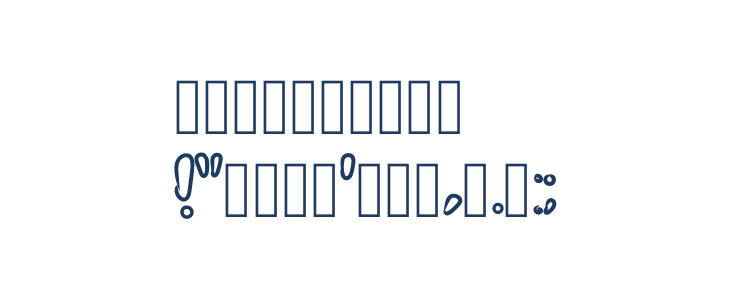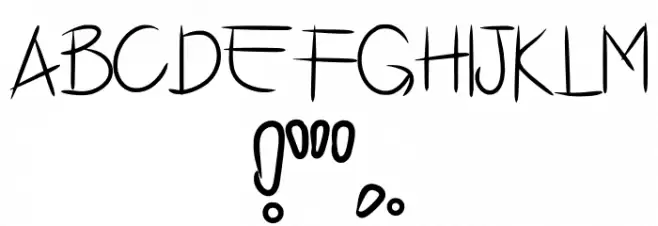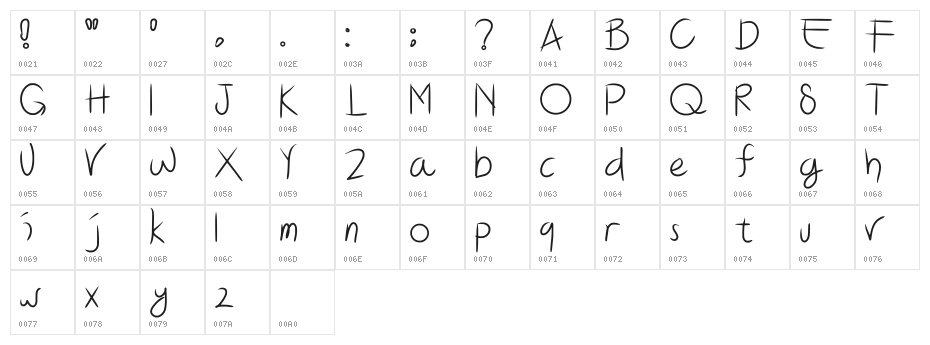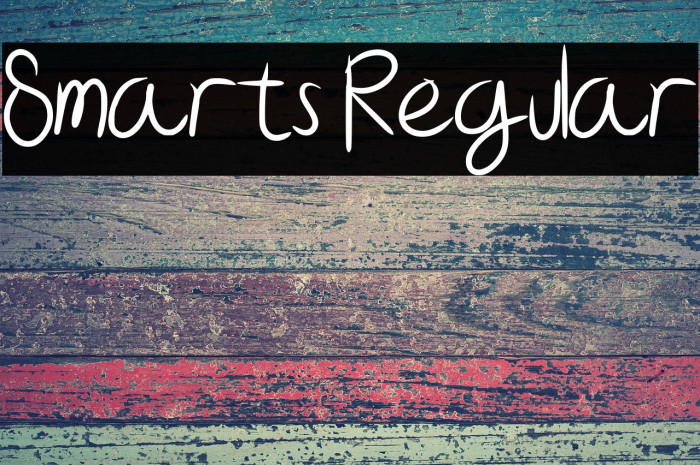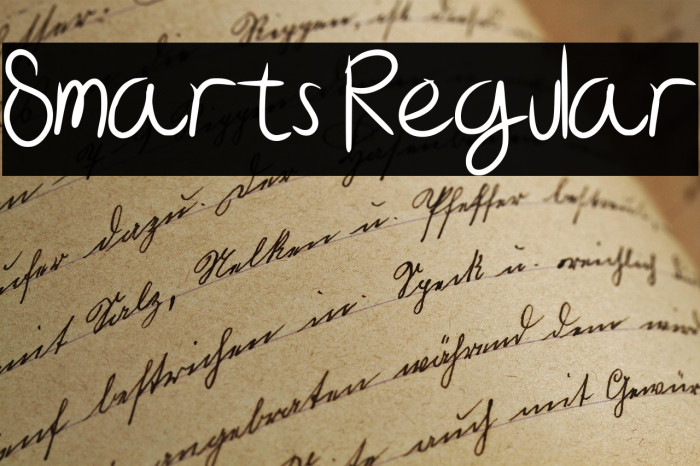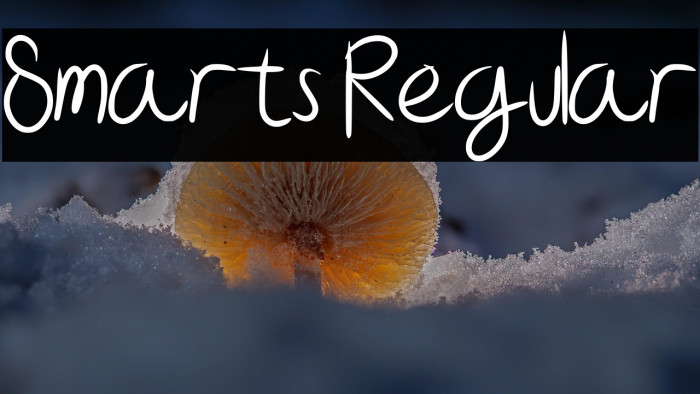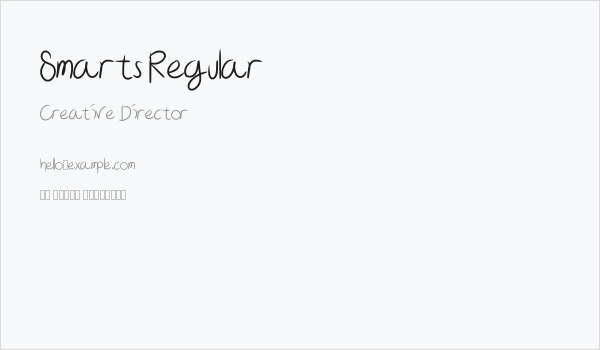
Smarts Regular Font
Smarts Regular Description
This font features a playful and whimsical style with a handwritten appearance. The letters are characterized by their tall, narrow forms and slightly irregular strokes, giving them a casual and friendly feel. The uppercase and lowercase letters maintain a consistent style, with smooth curves and a slight tilt that adds to the font's dynamic nature. The numbers and special characters are designed to match the overall aesthetic, ensuring a cohesive look across all text elements. This font's unique personality makes it suitable for projects that require a touch of creativity and informality.
Overall StylePlayful
Use CaseHeadlines, Informal text, Creative projects
Proposed ProjectsIdeal for children's books, greeting cards, creative posters, and informal branding.